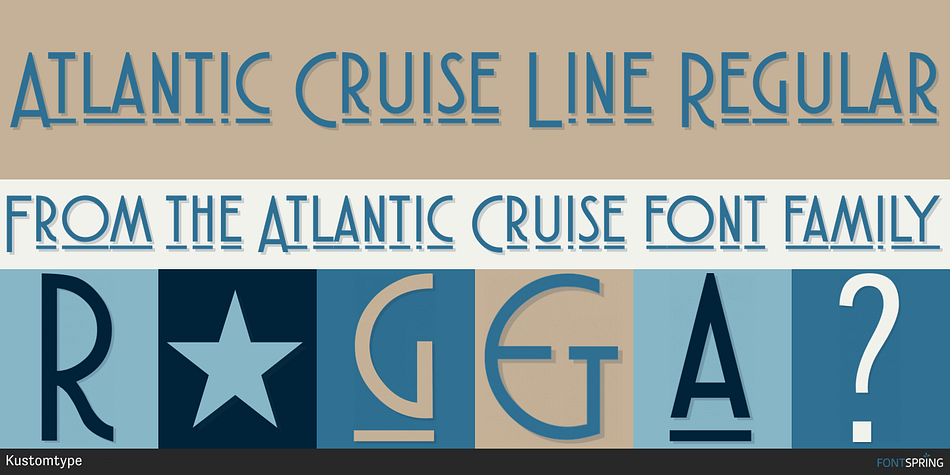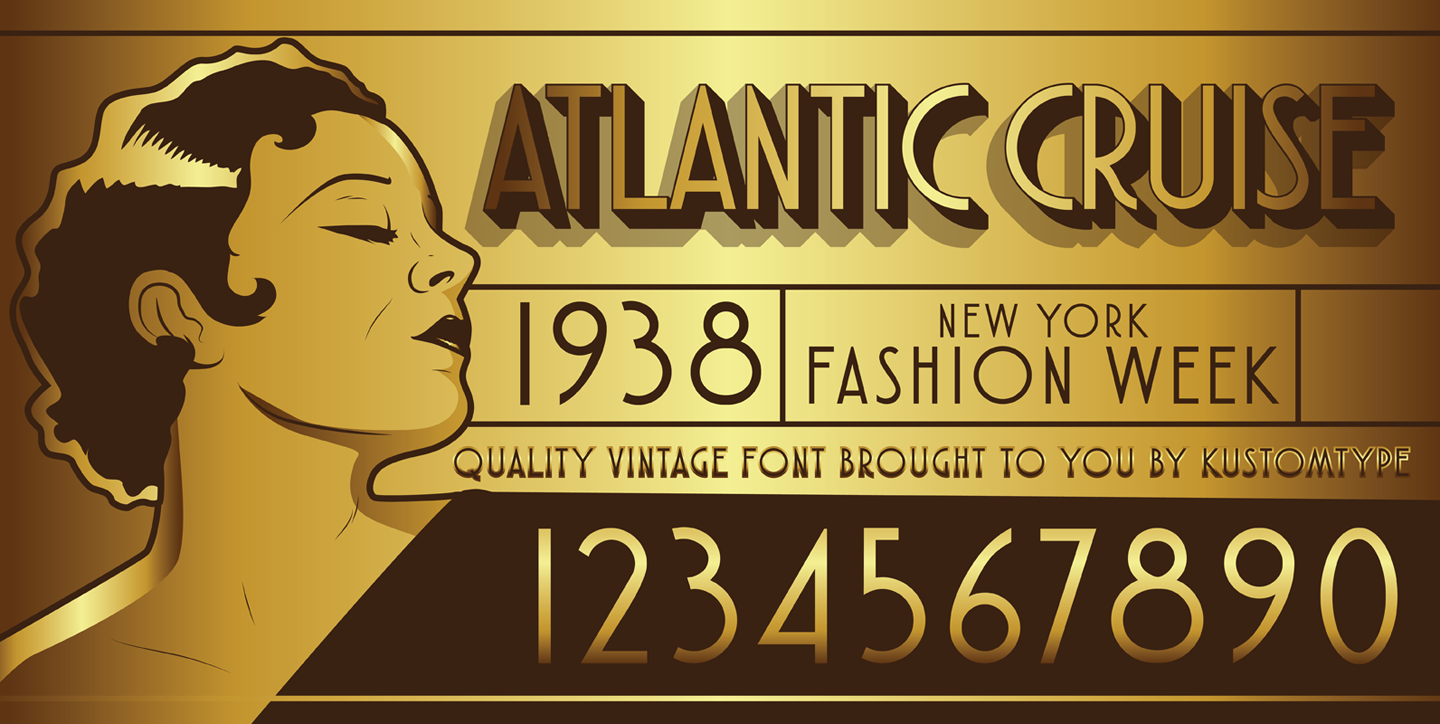
Atlantic Cruise Line Regular
Atlantic Cruise is a display sans and art deco font family. This typeface has five styles and was published by Kustomtype.
Atlantic Cruise Vintage and Modern Font
The “Atlantic Cruise” is the Titanic of Kustomtype’s fonts. The only difference between this and the real ship is that this one won’t sink – it’ll float forever.
Originally inspired by travel & cruise ads from fifties newspapers and airport novels, it shows off the nostalgic look of that era, but with a slightly modern touch. Using optical correction for better legibility, this font is the perfect fit for any of your graphic design applications or projects, ranging from editorial to corporate designs. It’s organized into letterforms, metrics and weights for optimal compatibility.
So, sit back and enjoy your Atlantic Cruise!